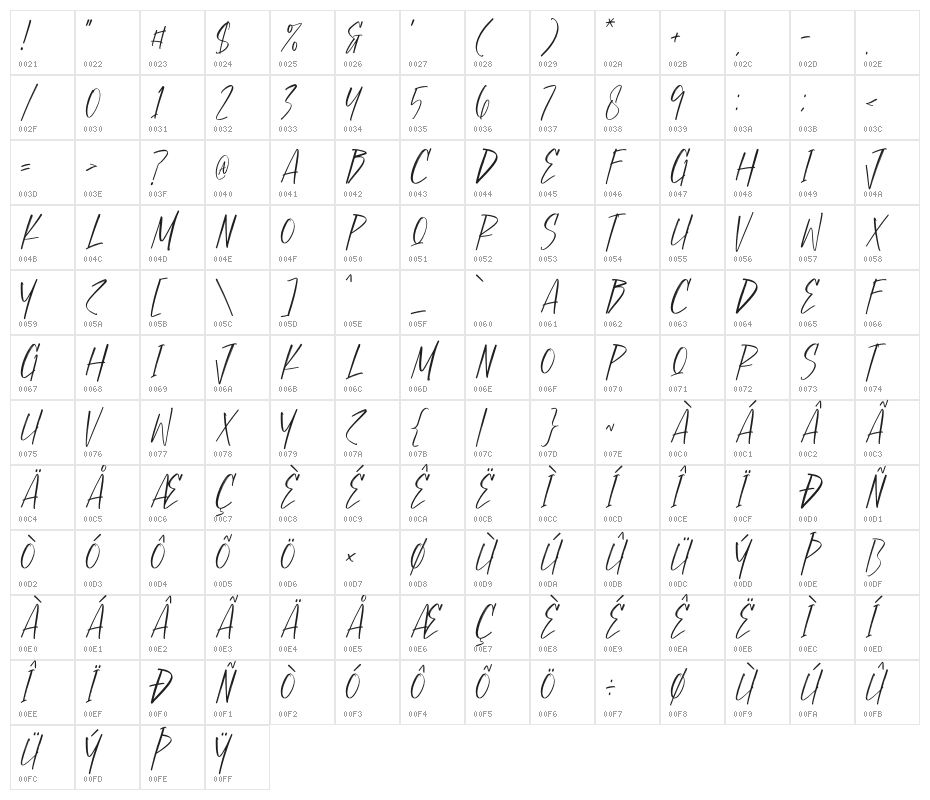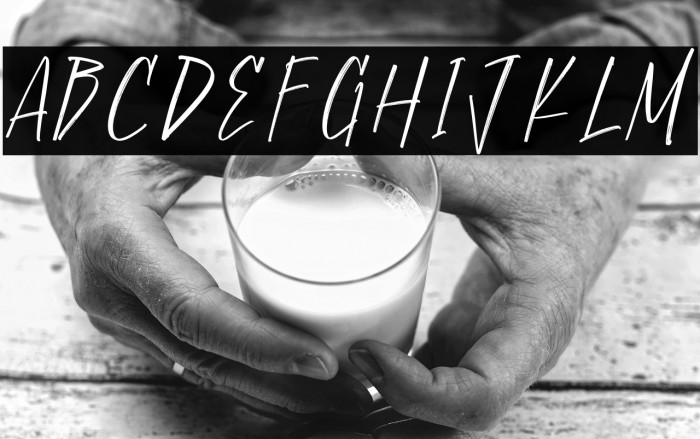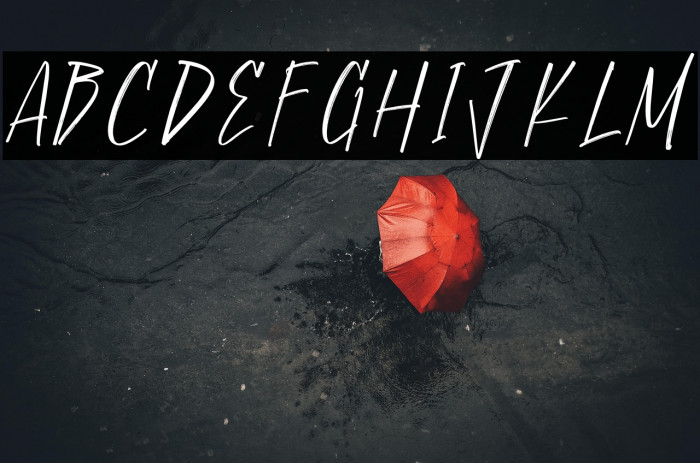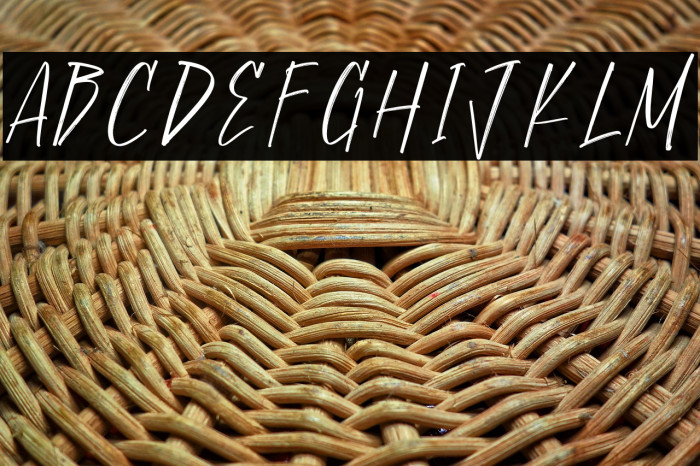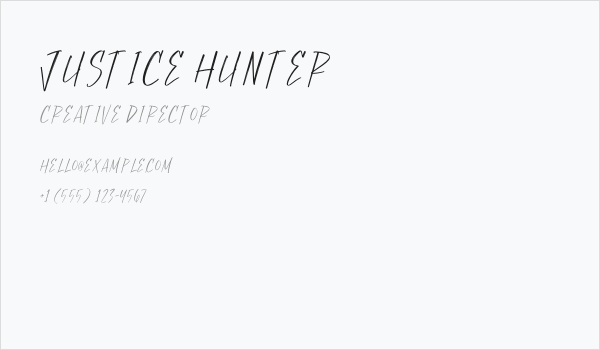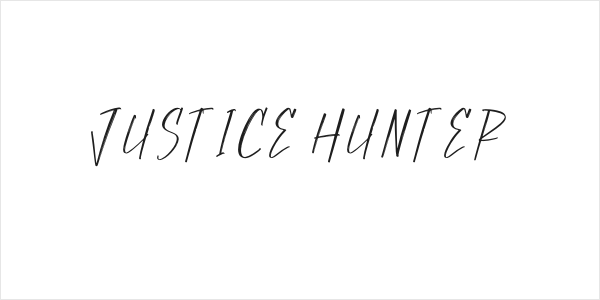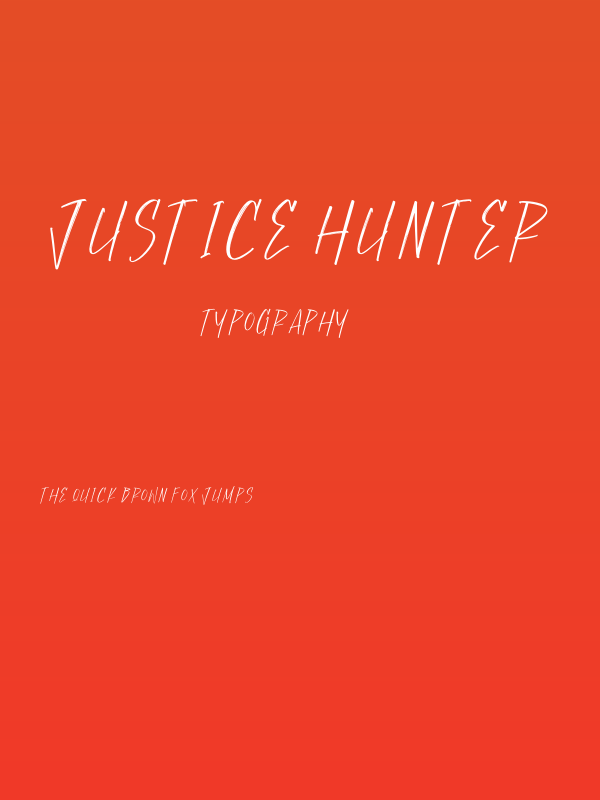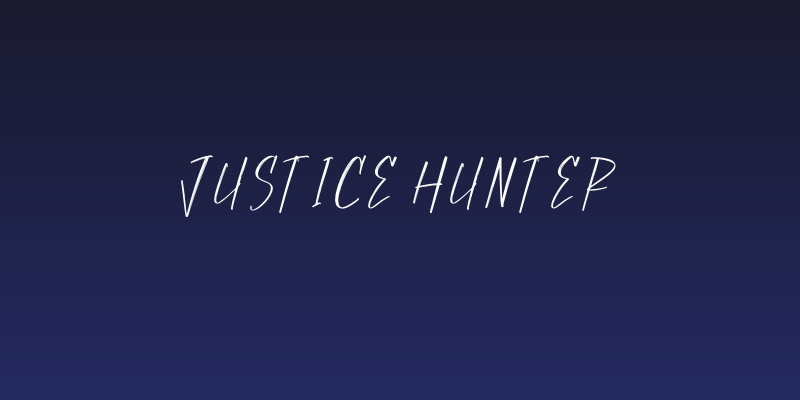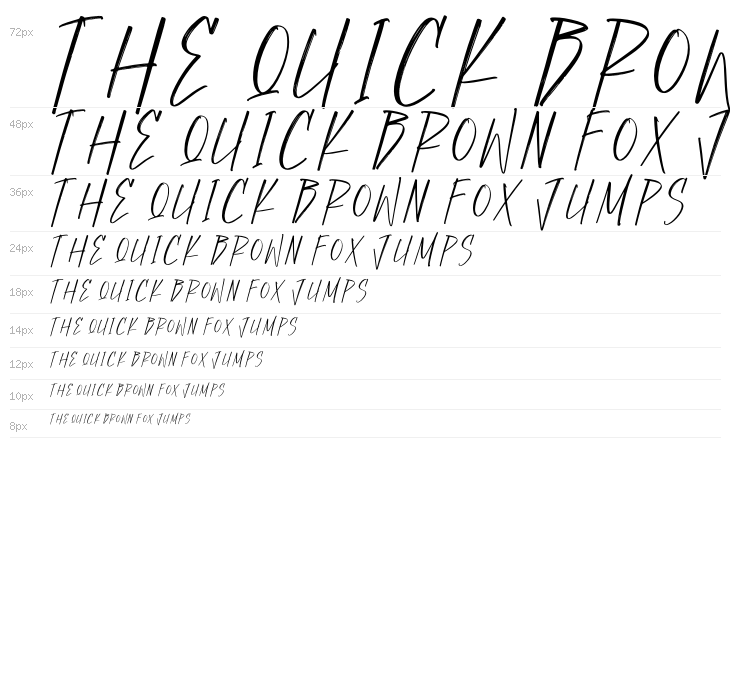
Justice Hunter Font
Justice Hunter Description
A tall, narrow handwritten font with a casual, energetic feel. The strokes are slightly irregular, mimicking natural handwriting, with a consistent slant and variable line thickness. Uppercase and lowercase letters are similar in height, and the numerals and punctuation maintain the same lively style.
| Overall Style | Casual, Energetic, Handwritten |
| Use Case | Logos, Headlines, Posters, Invitations |
| Proposed Projects | Greeting cards, posters, personal branding, social media graphics, informal invitations. |